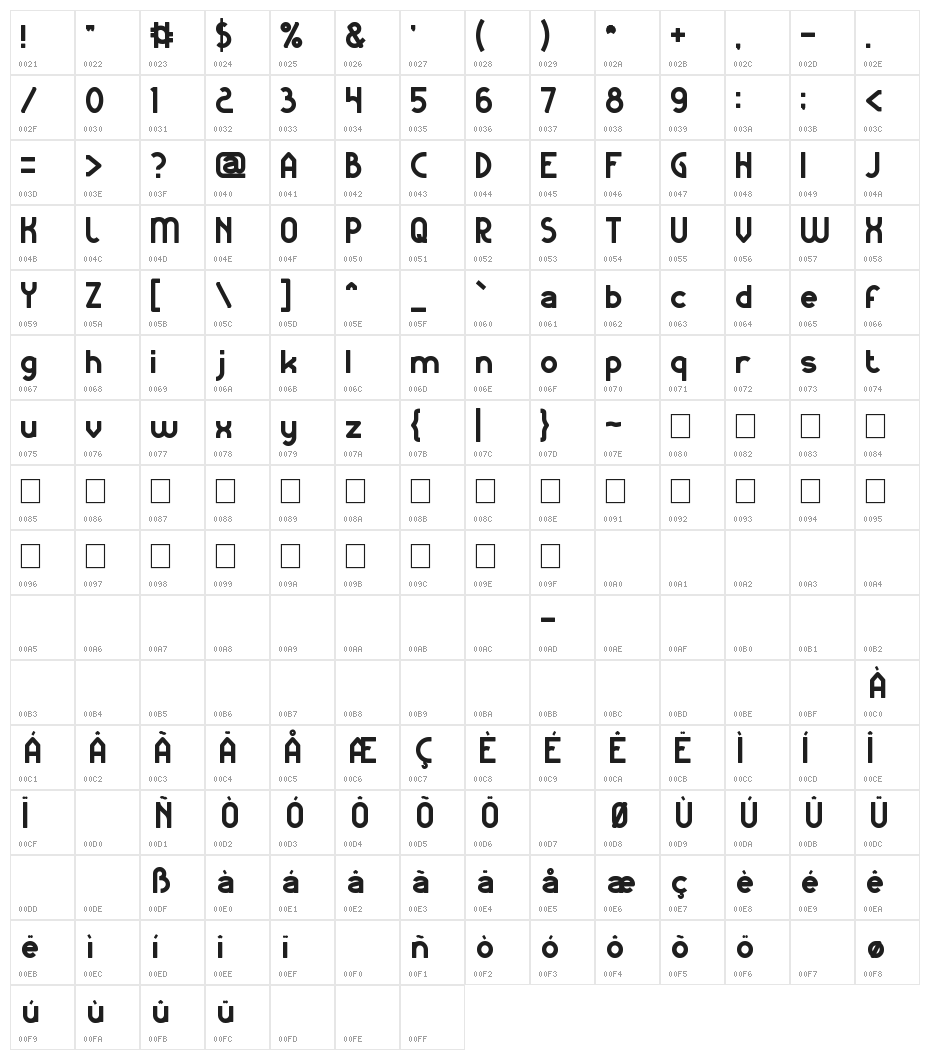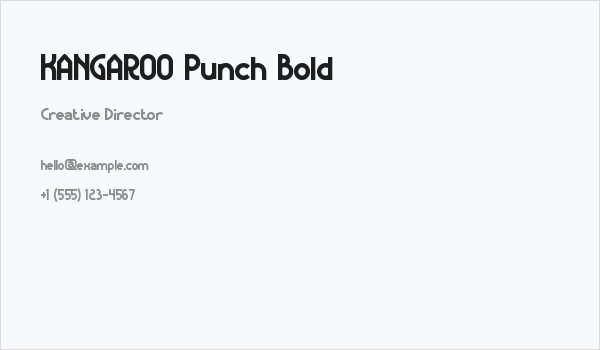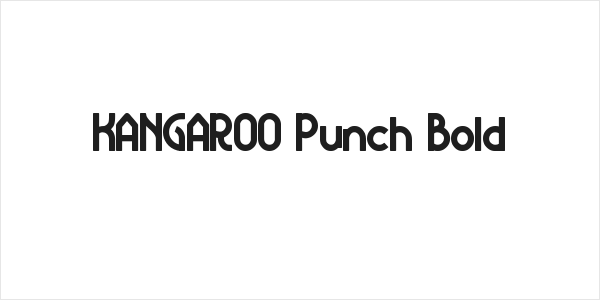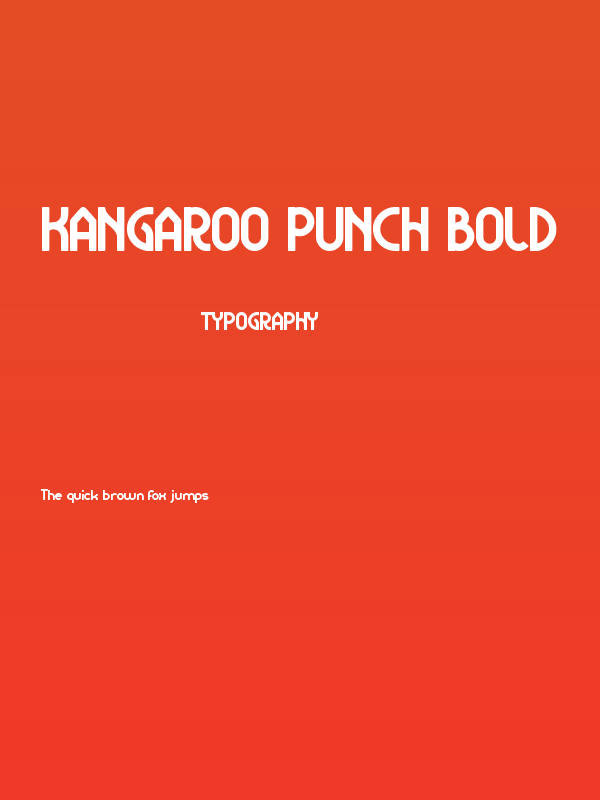
KANGAROO Punch Bold Font
KANGAROO Punch Bold Description
This bold and striking font features a unique blend of geometric and rounded elements, creating a modern and dynamic appearance. The uppercase letters are characterized by their bold, uniform strokes and slightly rounded edges, giving them a strong yet approachable look. The lowercase letters maintain a consistent style, with smooth curves and a balanced weight that complements the uppercase set. The numerals are equally bold and clear, ensuring readability and impact. Special characters are designed with the same attention to detail, making this font versatile for various applications.
| Proposed Projects | Ideal for branding, advertising, posters, and headlines where a strong visual impact is needed. |